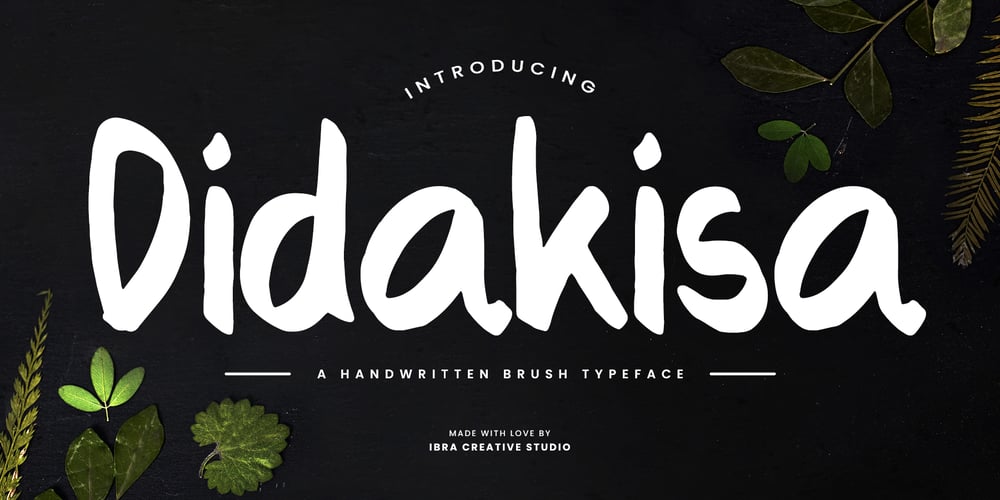
Didakisa Font Family was designed by Roisatul Azizah and published by IbraCreative. Didakisa contains 1 styles and family package options. Didakisa – A Handwritten Brush TypefaceDidakisa, a handwritten brush typeface, exudes a unique blend of organic charm and modern flair. Its distinctive strokes emulate the fluidity of hand-brushed characters, creating an authentic and personal touch to any design project. The letters in Didakisa showcase a harmonious balance between spontaneity and intentional design, resulting in a typeface that is both expressive and readable. With each character crafted with care, Didakisa brings a dynamic and lively quality to text, making it particularly well-suited for creative and artistic endeavors. Whether used for branding, invitations, or editorial design, Didakisa adds a touch of warmth and personality, capturing the essence of handcrafted authenticity in the digital realm.Didakisa is perfect for branding projects, logo, wedding designs, social media posts, advertisements, product packaging, product designs, label, photography, watermark, invitation, stationery, game, fashion and any projects.Fonts include multilingual support for; Afrikaans, Albanian, Czech, Danish, Dutch, English, Estonian, Finnish, French, German, Hungarian, Italian, Latvian, Lithuanian, Norwegian, Polish, Portuguese, Slovak, Slovenian, Spanish, Swedish.